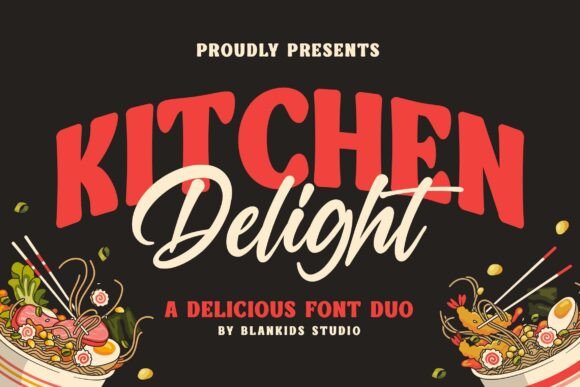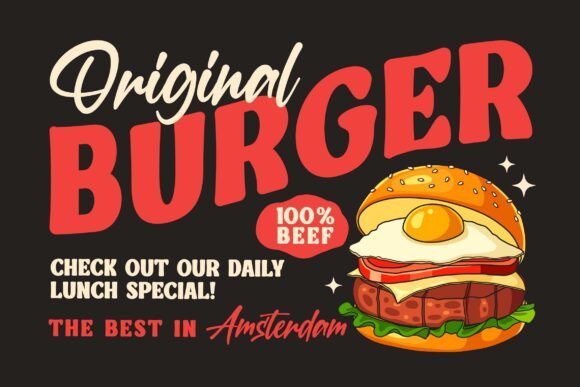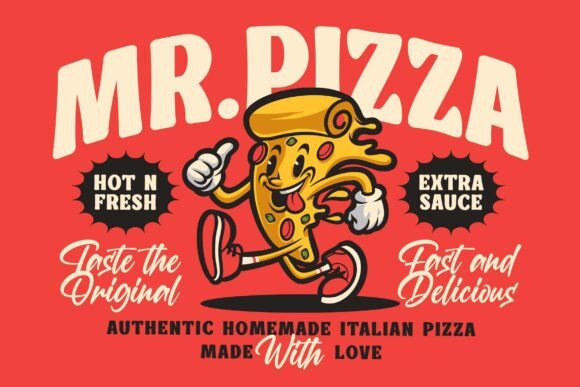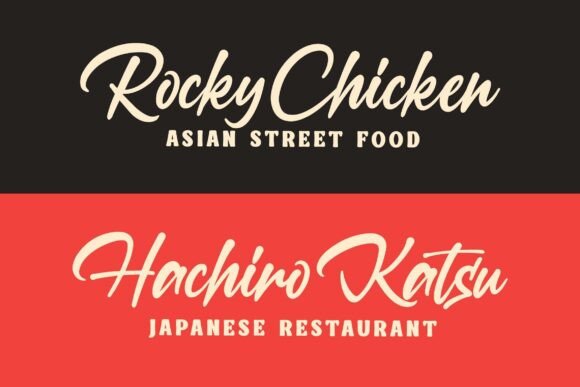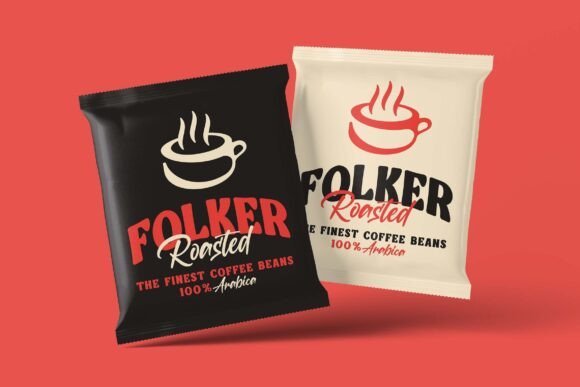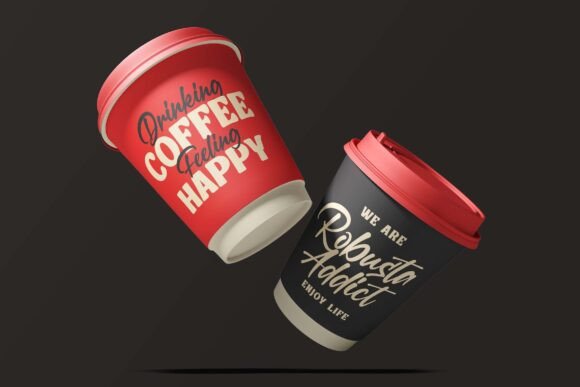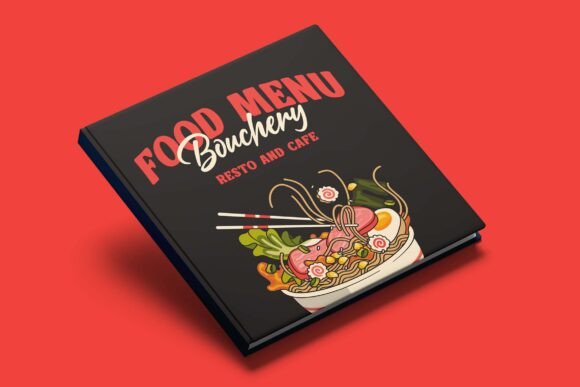
Kitchen Delight Font
Kitchen Delight is a delicious font duo that is made for any professional project branding, such as logotype, watermarks, poster, branding, promotions, product packaging, etc.